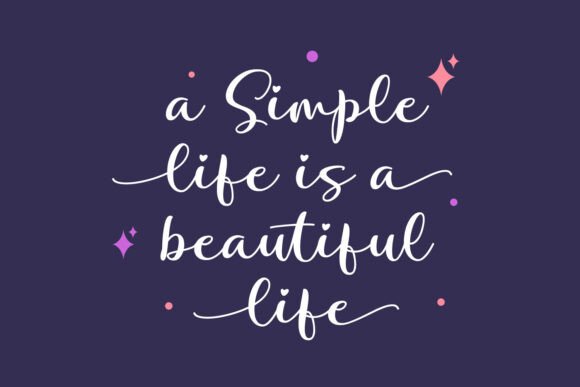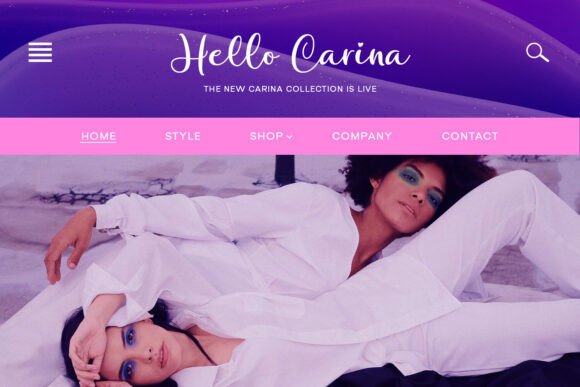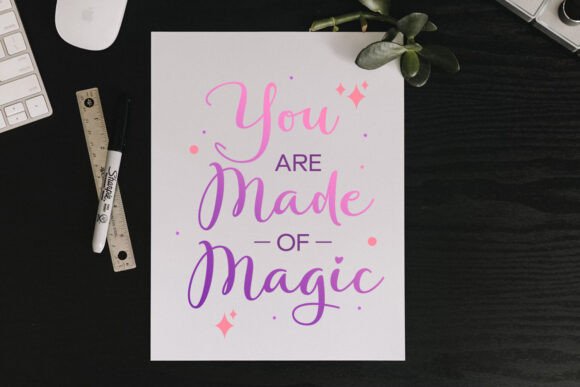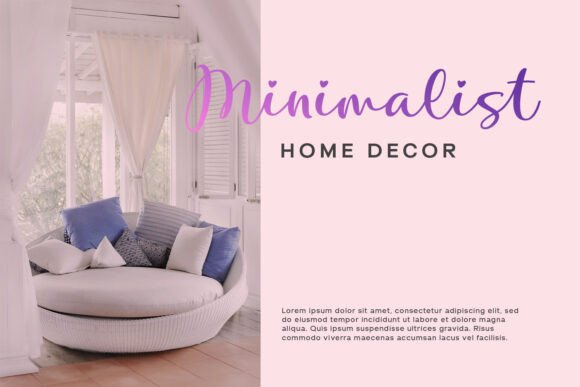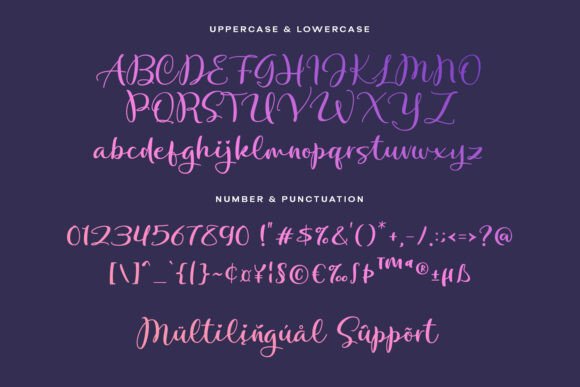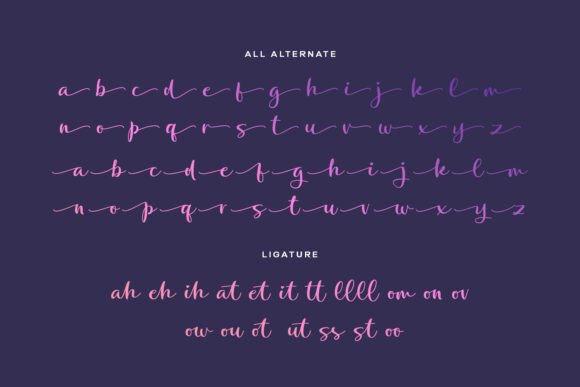
The Perfect Handwritten Touch: Unveiling Botigood Script Font
There’s something magical about the first spark of creativity – the moment when an idea clicks, and your imagination runs wild. It’s a feeling that’s hard to put into words, but for designers, it’s often the starting point of a new project. For me, it was the desire to create a wedding invitation that would leave a lasting impression on our guests. And that’s when I stumbled upon Botigood Script Font – a charming and elegant font that would bring our vision to life.
Botigood Script Font is a versatile tool that adds a handwritten touch to any design. Whether you’re creating wedding invitations, thank you cards, quotes, or logos, this font is sure to impress. With its PUA encoding, accessing all the glyphs and swashes is a breeze, making it a valuable addition to any designer’s toolkit.
Botigood Script Font Key Features
- Font Family: Botigood Script Font, a beautiful and elegant script font designed for various applications.
- Unique Characteristics: Features a flowing, handwritten style with subtle flair and organic feel, perfect for adding a touch of elegance to designs.
Review of Botigood Script Font
Overall, I was impressed with the Botigood Script Font. ✨ It has a beautiful, elegant feel that would be perfect for wedding invitations, baby shower decorations, or any other occasion where a touch of sophistication is needed.
- Wide range of applications: ✨ The Botigood Script Font can be used for a variety of purposes, from wedding invitations to social media graphics, making it a versatile addition to any designer’s toolkit.
- Unique design: ✨ The font’s unique design and flair make it stand out from more traditional fonts, adding a touch of personality to any project.
However, there are a few limitations to consider. ⚠️ The Botigood Script Font may not be the best choice for body text, as it can be difficult to read in smaller sizes. Additionally, the font may not be as compatible with older systems or fonts, which could cause issues with formatting.
Overall, I would give the Botigood Script Font 4 out of 5 stars. While it may have a few limitations, its unique design and wide range of applications make it a valuable addition to any designer’s toolkit.
Getting the Most Out of Botigood Script
To get the most out of Botigood Script, experiment with different font sizes, colors, and effects to create a unique look. Pair the font with complementary fonts to create a visually appealing design. Use Botigood Script for titles, headings, or emphasis to draw attention to important text.
Botigood Script is commonly used for:
• Wedding invitations and stationery
• Branding and logos
• Social media graphics and ads
• Designing quotes and motivational posters
Alternatives to Botigood Script Font
Lobster is a popular script font known for its elegant and playful feel. It is ideal for use in titles, headings, and other decorative text elements. Lobster is more ornate and cursive compared to Botigood Script Font, making it a good choice for designs that require a bolder, more eye-catching script.
Great Vibes is a modern script font with a relaxed and casual feel. It is suitable for use in headings, titles, and body text. Great Vibes is more fluid and dynamic compared to Botigood Script Font, making it a good choice for designs that require a sense of movement and energy.
Pacifico is a beautiful script font with a tropical and elegant feel. It is ideal for use in titles, headings, and body text. Pacifico is more refined and sophisticated compared to Botigood Script Font, making it a good choice for designs that require a sense of luxury and sophistication.